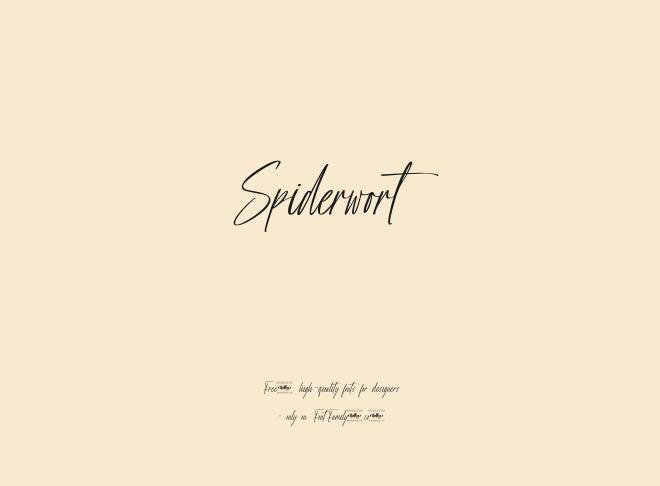
Spiderwort Font
Introducing the Spiderwort Font, a unique and enchanting typeface that exudes a sense of mystery and magic. Its intricate design combines elements of script and decorative styles, making it ideal for fantasy-themed projects or any design work that requires a touch of whimsy. With its elegant and distinctive characters, Spiderwort Font is a standout choice comparable to other popular fonts in the fantasy genre. Its versatility makes it perfect for branding, logos, posters, and even book covers. Despite its intricate design, it maintains a high level of readability, making it not only beautiful but also practical. So, if you're looking to add a touch of magic to your design work, Spiderwort Font is a must-try.